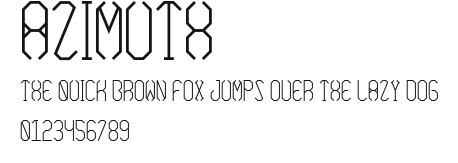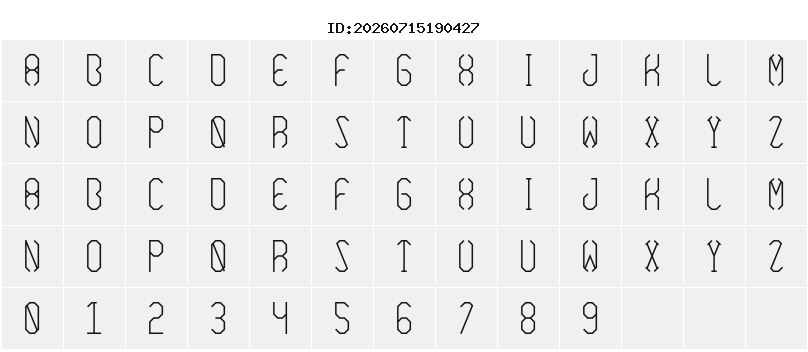
• Font Name: Azimuth
• Full Font Name: Azimuth Bold
• Designer: RO_DIF
Azimuth.ttf is a modern, elegant sans-serif font designed for ultimate readability and visual harmony. Perfect for branding, headlines, web design, and print materials.